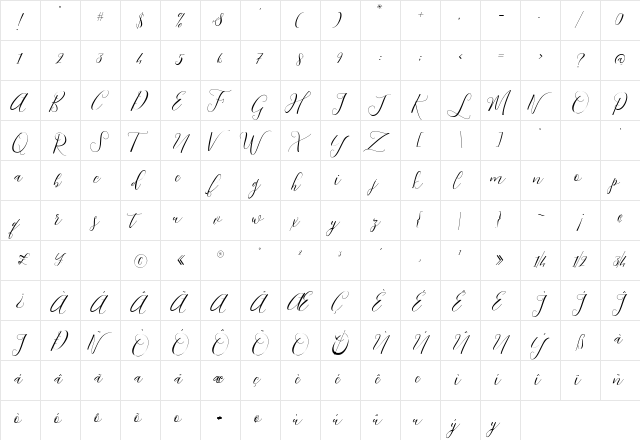
Niceday Regular
Design Context for Niceday Typeface
Niceday is a composed and adaptable typeface that performs quietly and consistently across a wide range of design contexts.